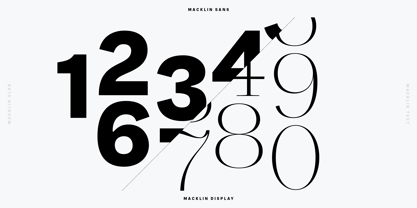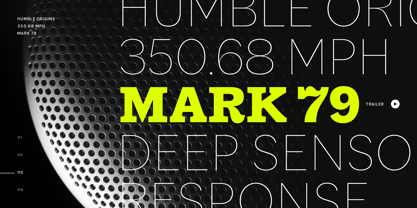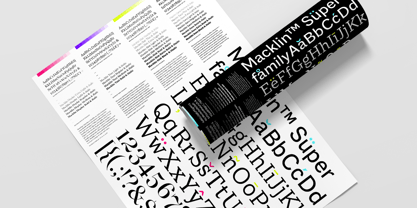
Macklin™
About the family
Designed by Malou Verlomme of the Monotype Studio, Macklin is a superfamily, which brings together several attention-grabbing styles. Macklin is an elegant, high contrast typeface that demands its own attention and has been designed purposely to enable brands to appeal more emotionally to modern consumers.
Macklin comprises four sub-families —Sans, Slab, Text and Display— as well as a variable. The full superfamily includes 54 fonts with 9 weights ranging from hairline to black.
The concept for Macklin began with research on historical material from Britain and Europe in the beginning of the 19th century, specifically the work of Vincent Figgins. This was a period of intense social change--the beginning of the industrial revolution. A time when manufacturers and advertisers were suddenly replacing traditional handwriting or calligraphy models and demanding bold, attention-grabbing typography. Typographers experimented with innovative new styles, like fat faces and Italians, and developed many styles that brands and designers continue to use today, such as slabs, serifs, and sans serifs.
Verlomme pays respect to Figgins’s work with Macklin, but pushes the family to a more contemporary place. Each sub family has been designed from the same skeleton, giving designers a broad palette for visual representation and the ability to create with contrast without worrying about awkward pairings. With Macklin, Verlomme shows us it’s possible to create a superfamily that allows for complete visual expression without compromising fluidity.